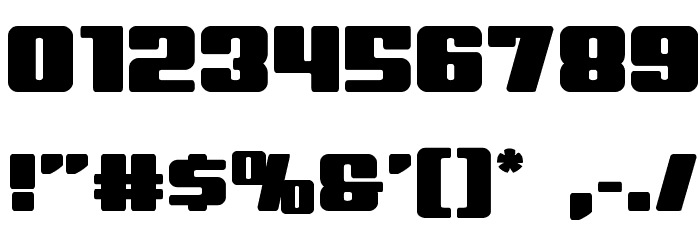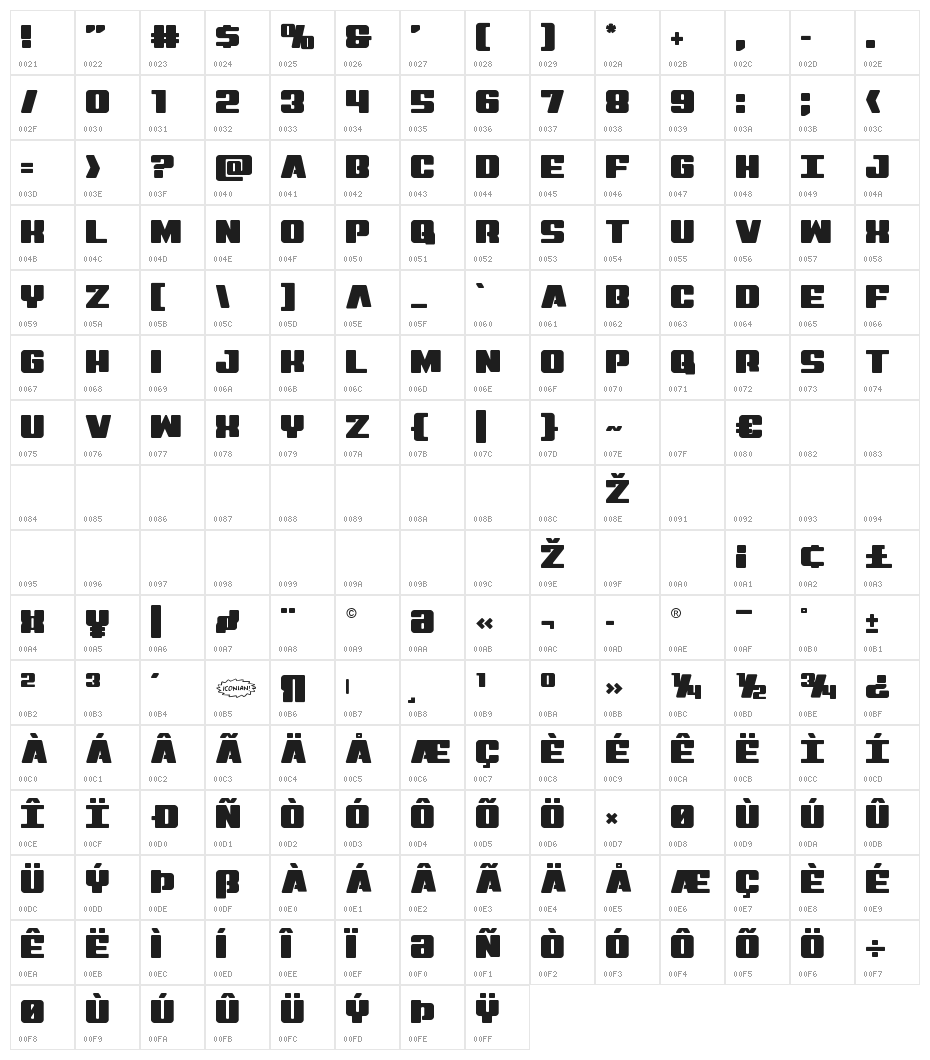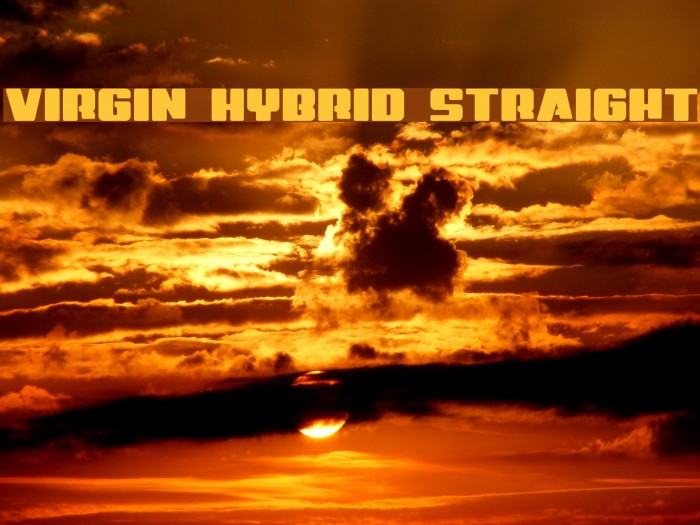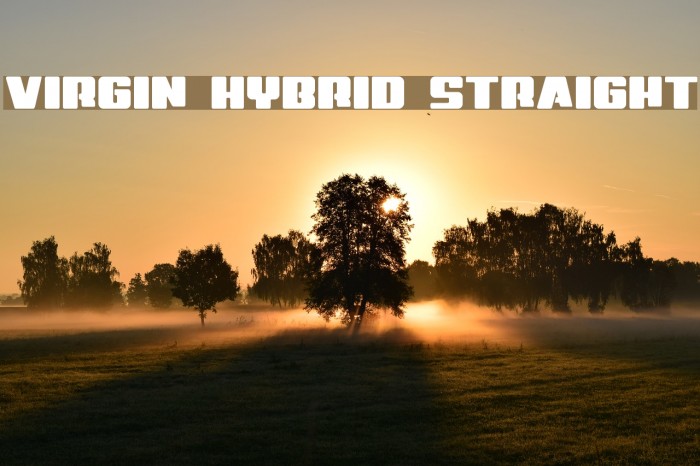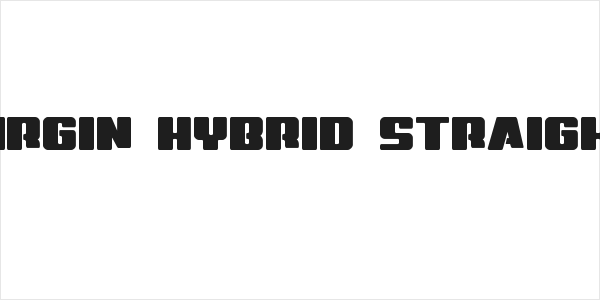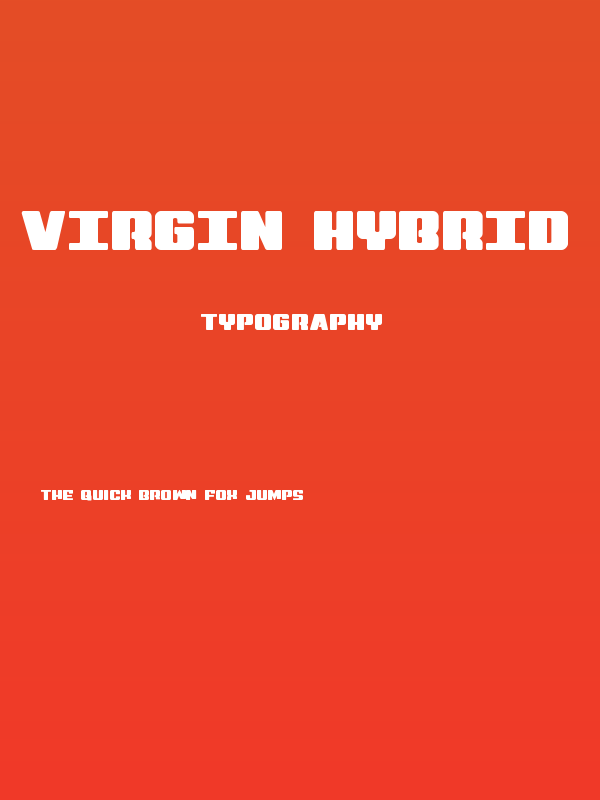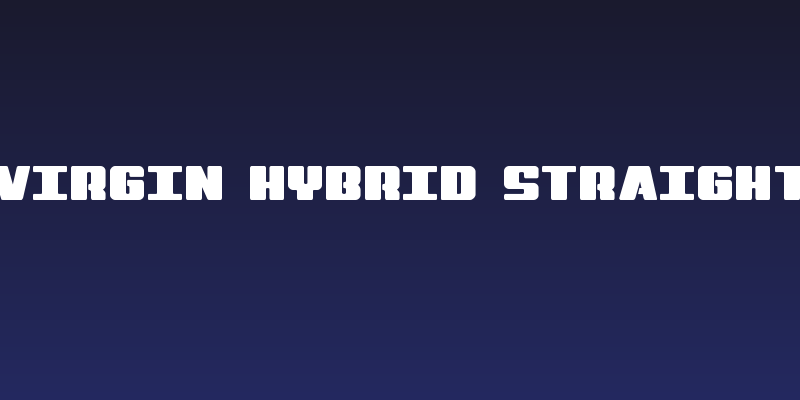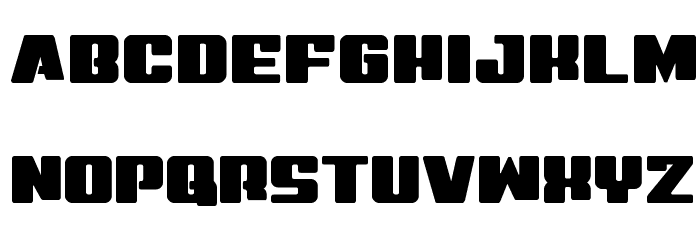
Virgin Hybrid Straight Font
Virgin Hybrid Straight Description
This bold and impactful font features a strong, geometric design with thick, block-like characters. The uppercase letters are uniform in height, creating a cohesive and powerful visual presence. The numbers and special characters maintain the same boldness, ensuring consistency across all elements. The font's design is modern and assertive, making it ideal for attention-grabbing headlines or branding materials. Its wide character width and tight spacing enhance its bold appearance, while the low contrast in stroke thickness adds to its solid and stable look.